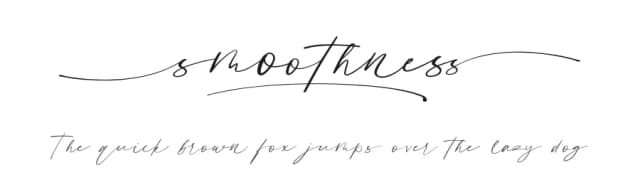
About Thamepalms Font
Hello Thamepalms Font is pure hand strokes that are inspired by pure handwriting from natural hands, elegant strokes bring out authentic writing, coupled with letter endings with long lines to enhance your Type
Thamepalms Specifications
| Font Family | Thamepalms |
| Full Name | Thamepalms Regular |
| Glyph Count | 418 glyphs |
| PostScript Name | Thamepalms-Regular |
| Designer | Laire Banyu Samdi Pawenang |
Thamepalms ships with 2 OpenType features you can switch on in apps that support them (Illustrator, InDesign, Affinity, Figma, CSS font-feature-settings).
Thamepalms Font is a script font that shines as a display or heading face. Pair it with a clean sans-serif or serif font for body text β the contrast creates a clear hierarchy while the two styles stay balanced and easy to read.
Thamepalms Font
by The Ocean Studio - Laire Banyu Sandi Pawenang